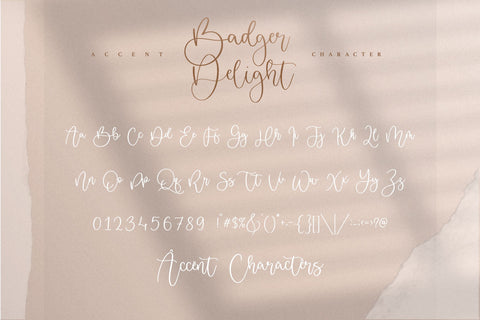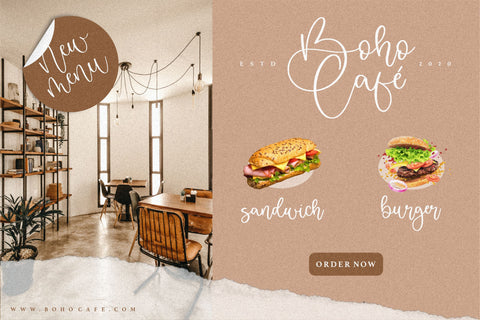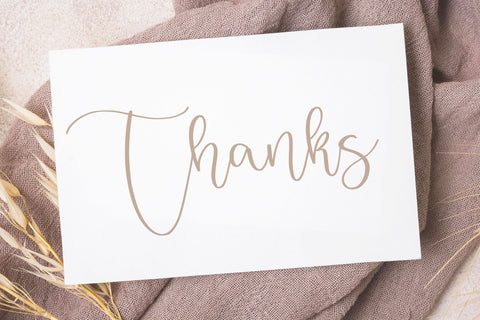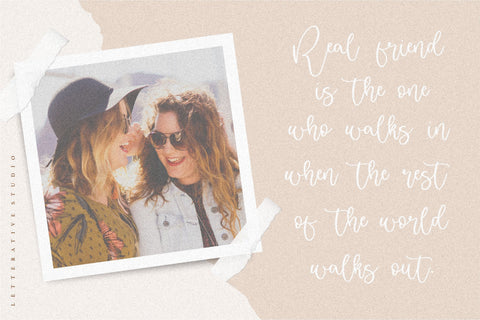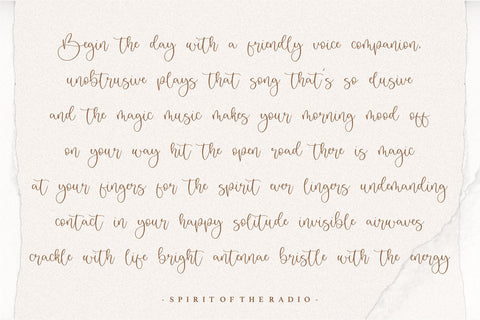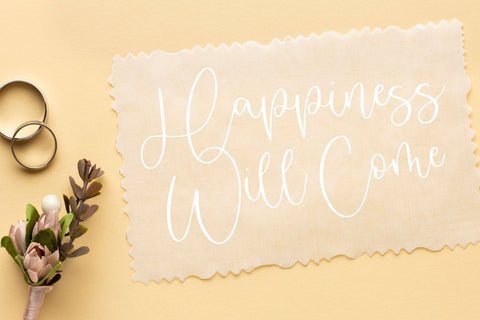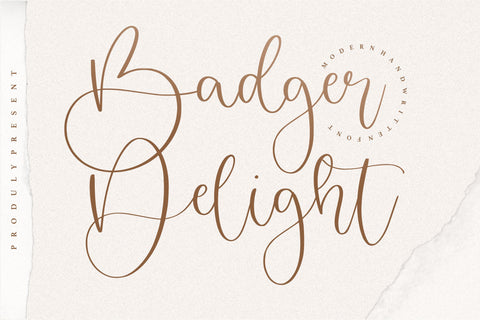
Badger Delight Modern Monoline Script Font
Introducing by Letterative Studio : Badger Delight Font
Badger Delight is a Modern Monoline Script Font.
Badger Delight is perfect for product packaging, branding project, megazine, social media, wedding, or just used to express words above the background.
Badger Delight also multilingual support